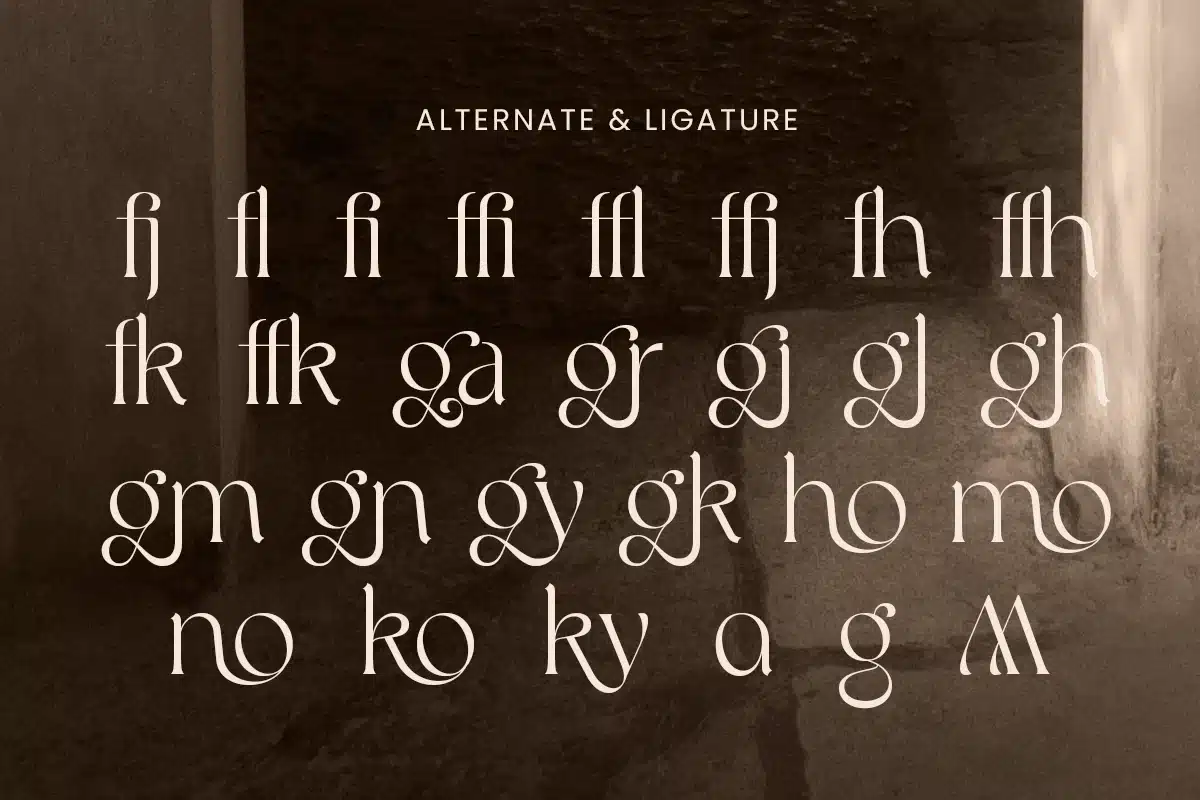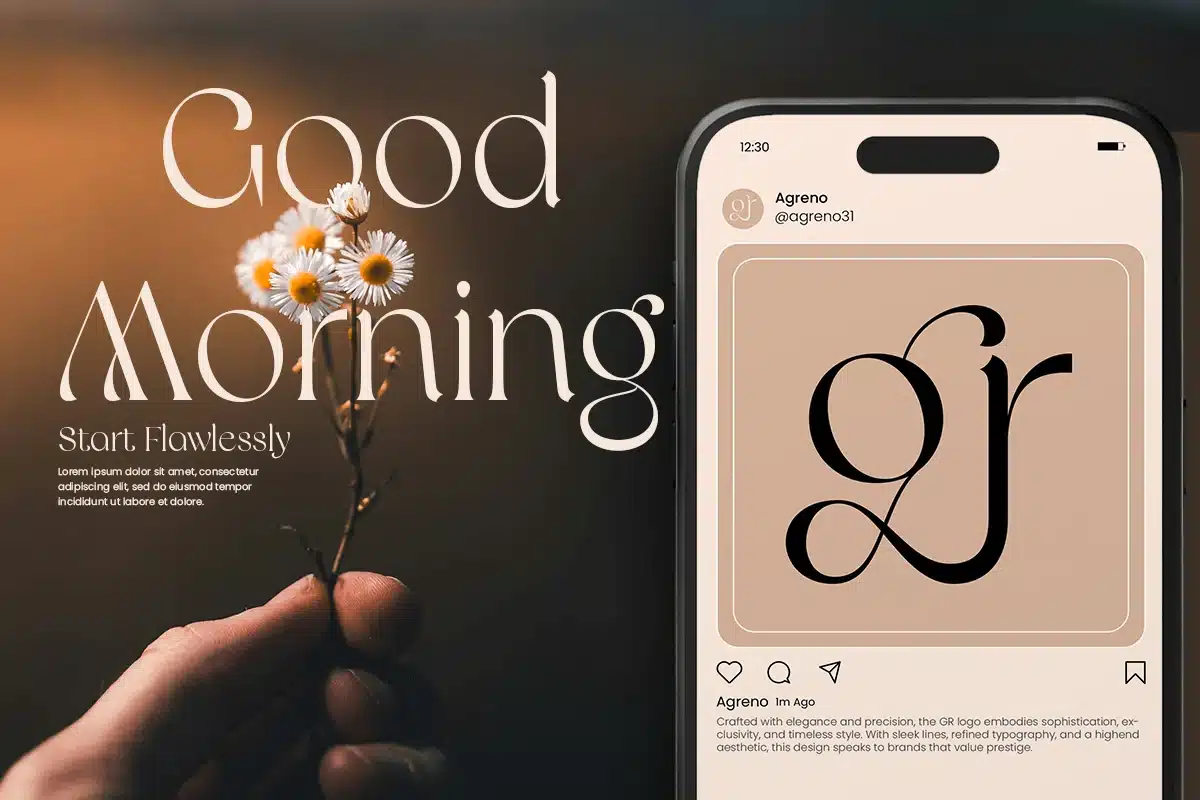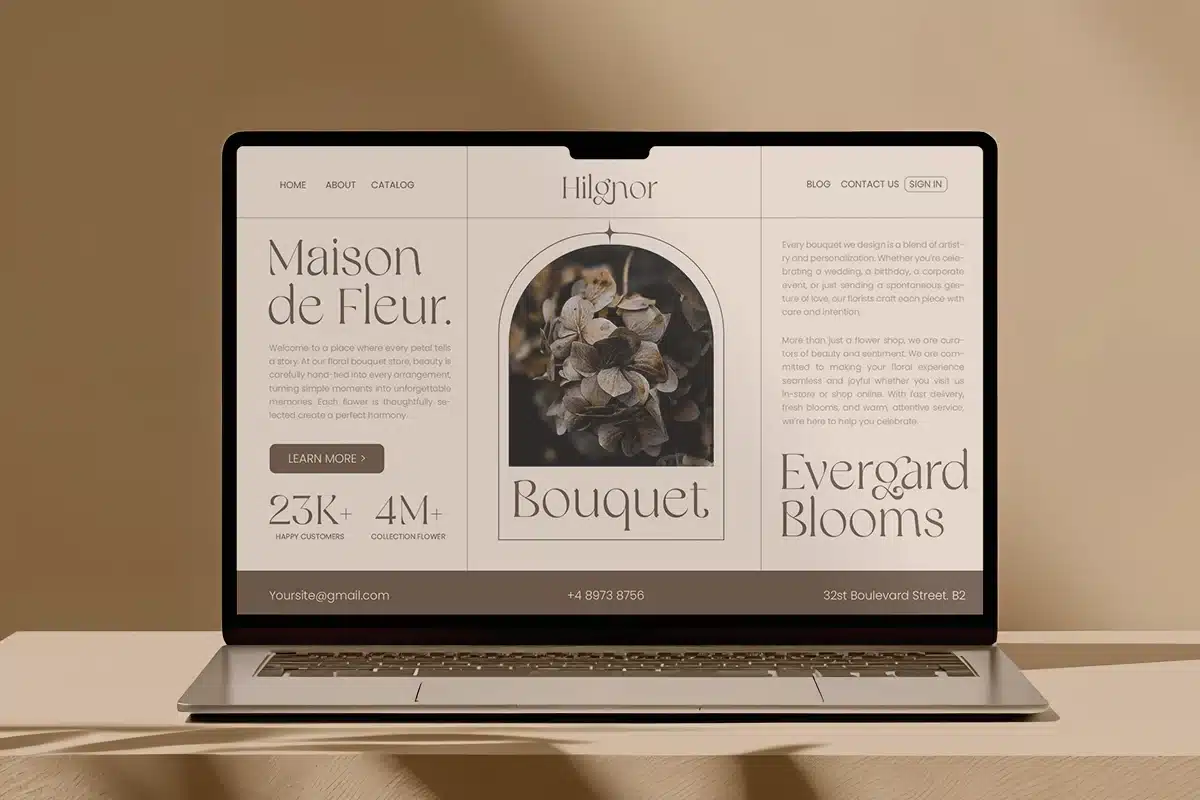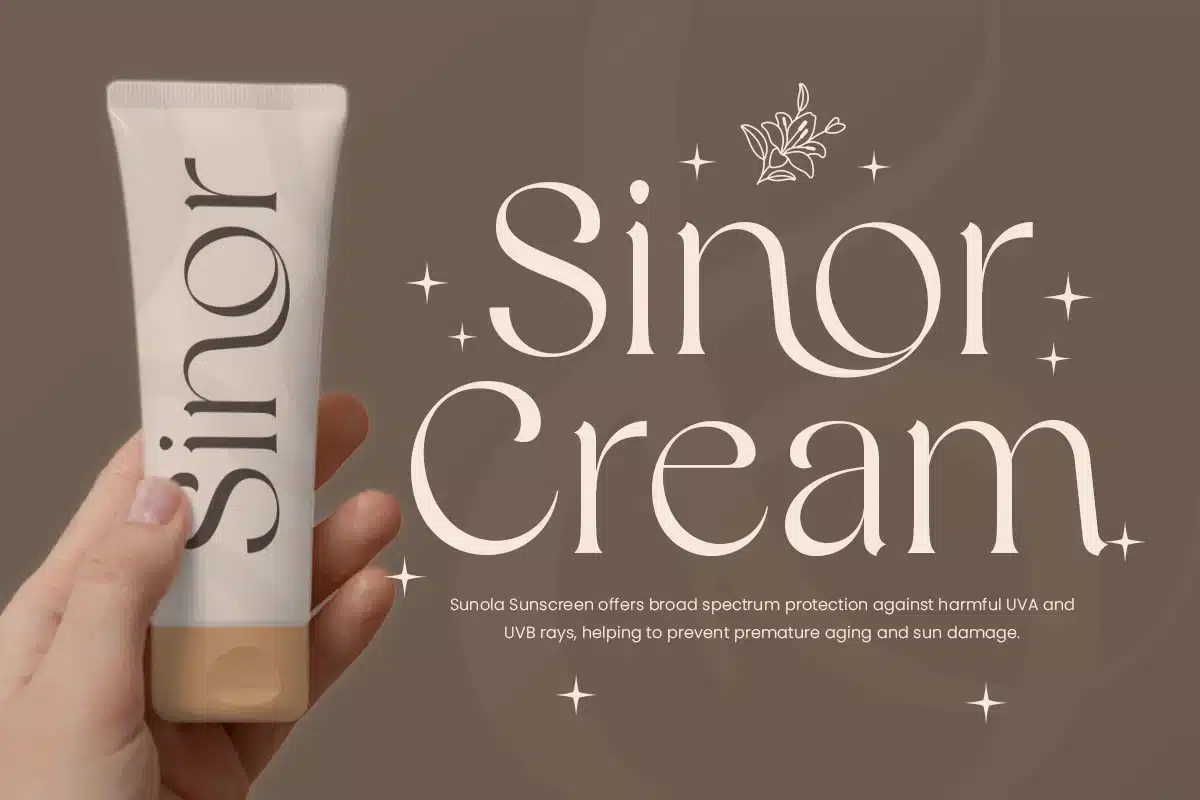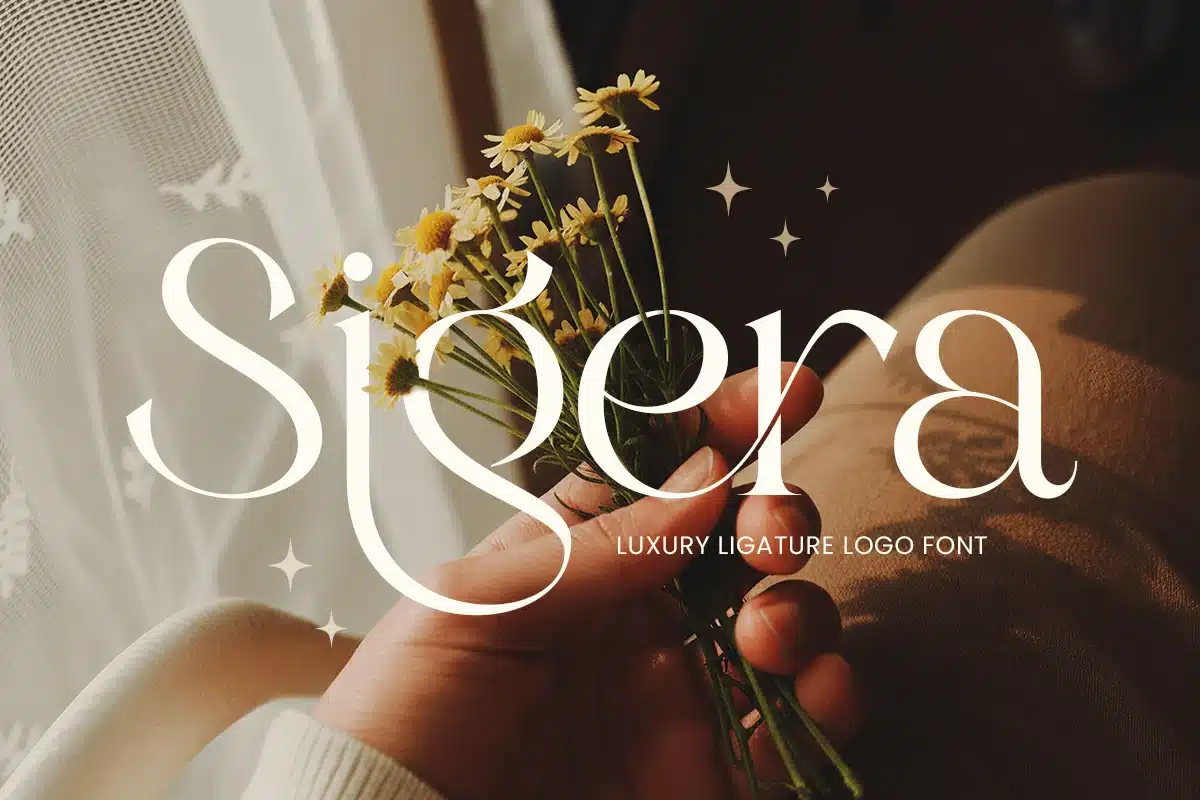
Sigale – Modern Display Serif Logo Font
Sigale is a luxury serif logo font designed to bring sophistication and elegance to premium branding projects. Ideal for logos, high-end business branding, packaging, and editorial designs, it combines timeless serif aesthetics with modern refinement.
With graceful, well-proportioned letterforms, Sigale provides a polished, professional look suitable for both digital and print applications. Perfect for designers seeking a luxurious, stylish, and versatile font.
Sigale – Luxury Serif Logo Font Features
- Elegant and luxurious serif character set
- Perfect for high-end branding, logos, and premium designs
- OpenType features for extra versatility
Multilingual support for
Enhance your luxury branding with Sigale – the ultimate serif font for elegant and stylish logo designs. ✨